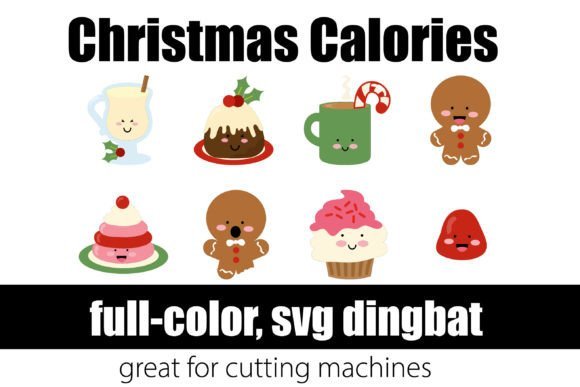
Deck the Halls with Delicious Design
As you’re sipping hot cocoa and browsing through holiday designs, the spark of inspiration strikes – you want to create a festive Christmas card, or perhaps a set of merry gift tags. But, what’s missing is that extra oomph, that pinch of personality that makes your design stand out from the crowd.
Enter the Christmas Calories Font, a whimsical dingbat font featuring Christmas treats that’s sure to bring a smile to your face. Perfect for vinyl and cutting machines, this OpenType full-color (SVG) font is a game-changer for designers looking to add some holiday cheer to their projects.
With the Christmas Calories Font, you can add a pop of color and fun to your designs, making them truly unforgettable. Whether you’re a seasoned pro or a design newbie, this font is sure to bring joy and creativity to your holiday projects.
Christmas Calories Font Key Features
- Unique Characteristics: The font features festive and fun characters, including Christmas-themed icons and symbols, adding a touch of holiday cheer to any design.
Christmas Calories Font Review
Overall, I was excited to try out the “Christmas Calories Font”. It’s a playful, festive font that’s perfect for adding some holiday cheer to your designs. ✨
- Unique and festive design – it’s perfect for holiday-themed projects.
- Fun and creative vibe – it’s great for adding a playful touch to your designs.
However, I did encounter a few limitations that might be worth considering: ⚠️
- Limited character set – it’s not suitable for body text or long blocks of text.
- Not ideal for professional or formal designs – it’s best suited for playful or casual projects.
Overall, I’d say the “Christmas Calories Font” is a fun and creative addition to any holiday design project. While it’s not without its limitations, it’s a great choice for adding some festive flair to your designs. Just be sure to use it in the right context!
Use the Christmas Calories Font to create eye-catching graphics, such as holiday-themed social media posts or party invitations.
Use the Christmas Calories Font to create custom holiday graphics, such as gift tags or ornament designs.
Use the Christmas Calories Font to create engaging holiday presentations or documents, such as party invitations or holiday greeting cards.